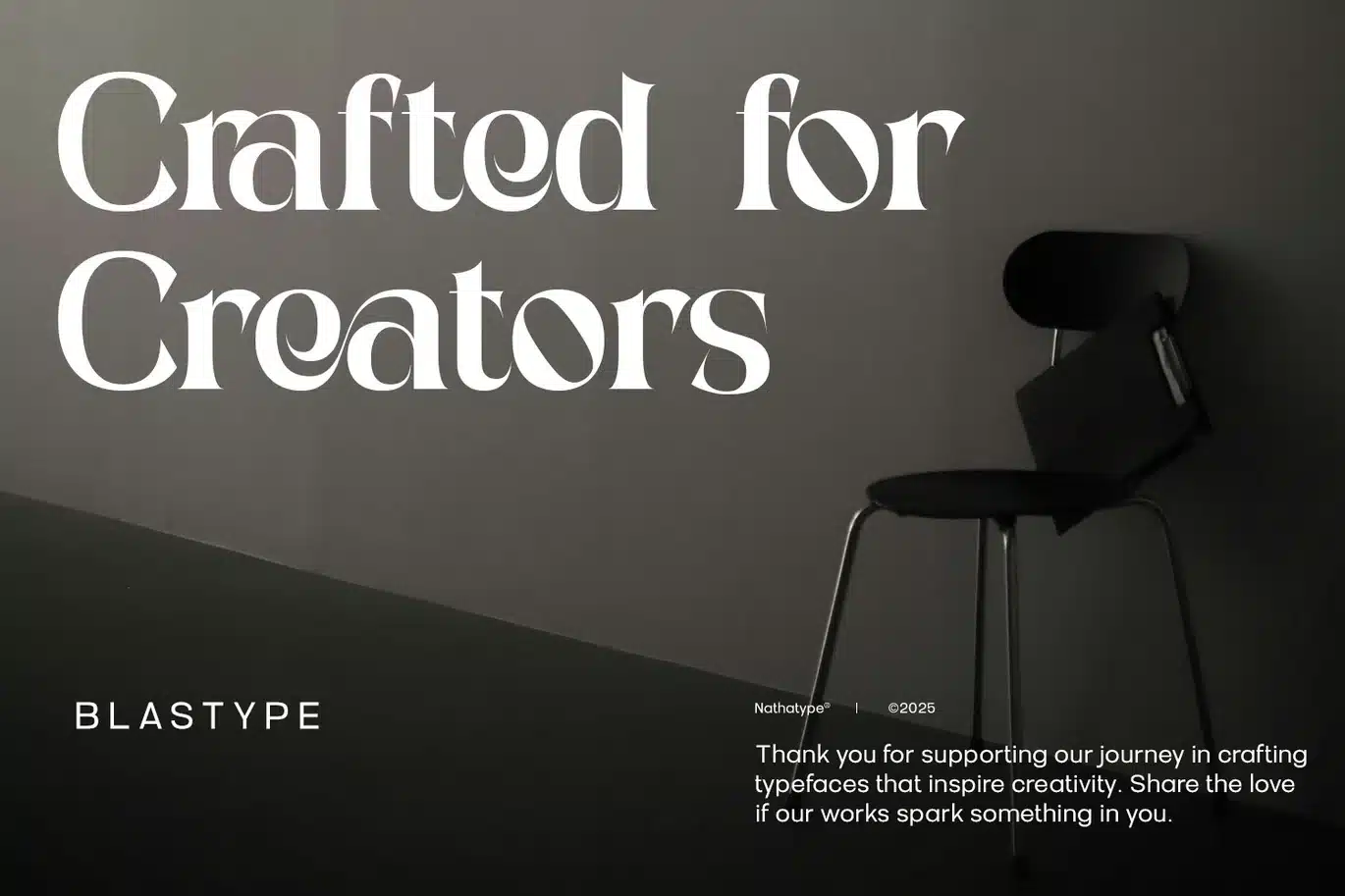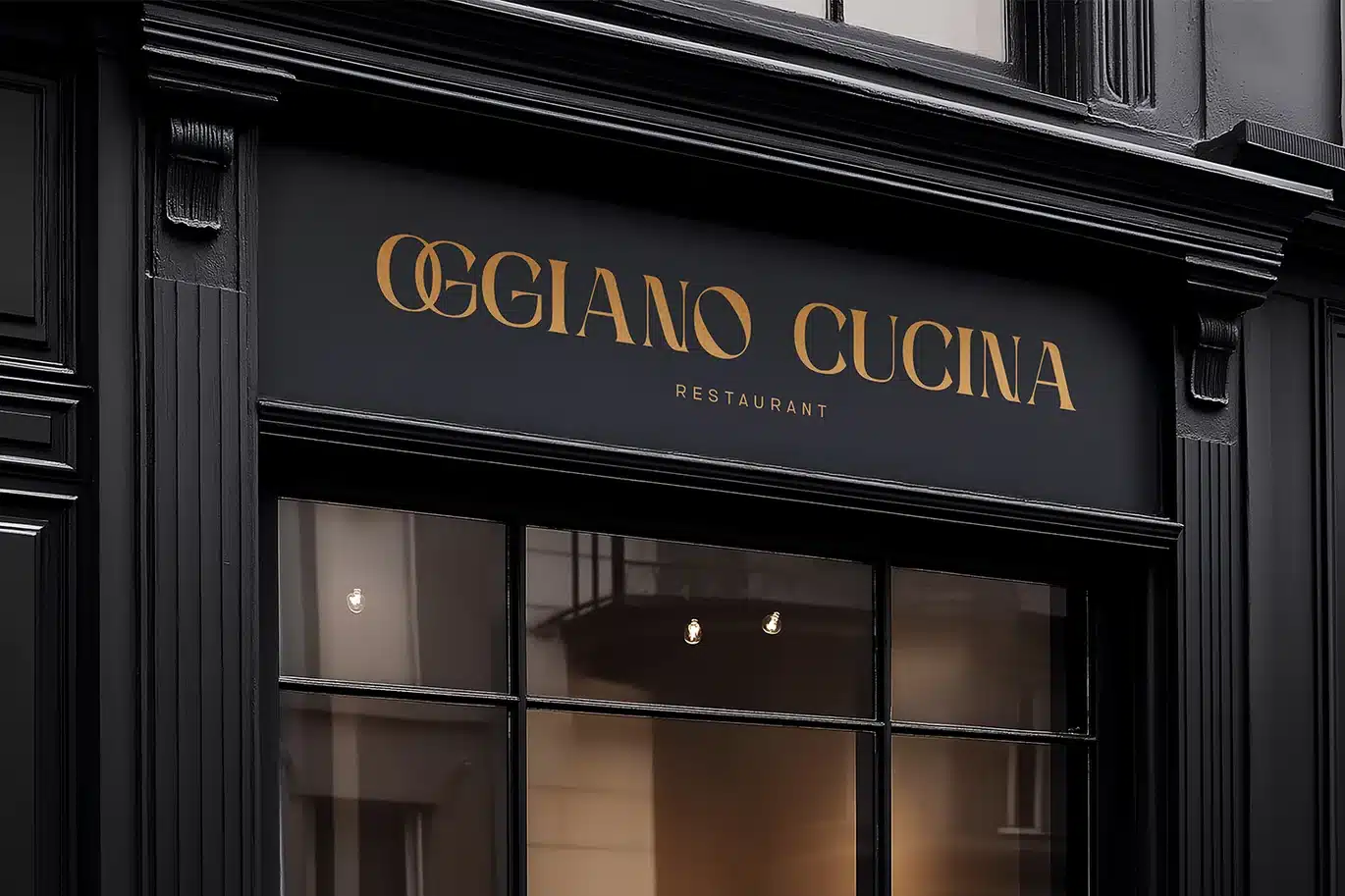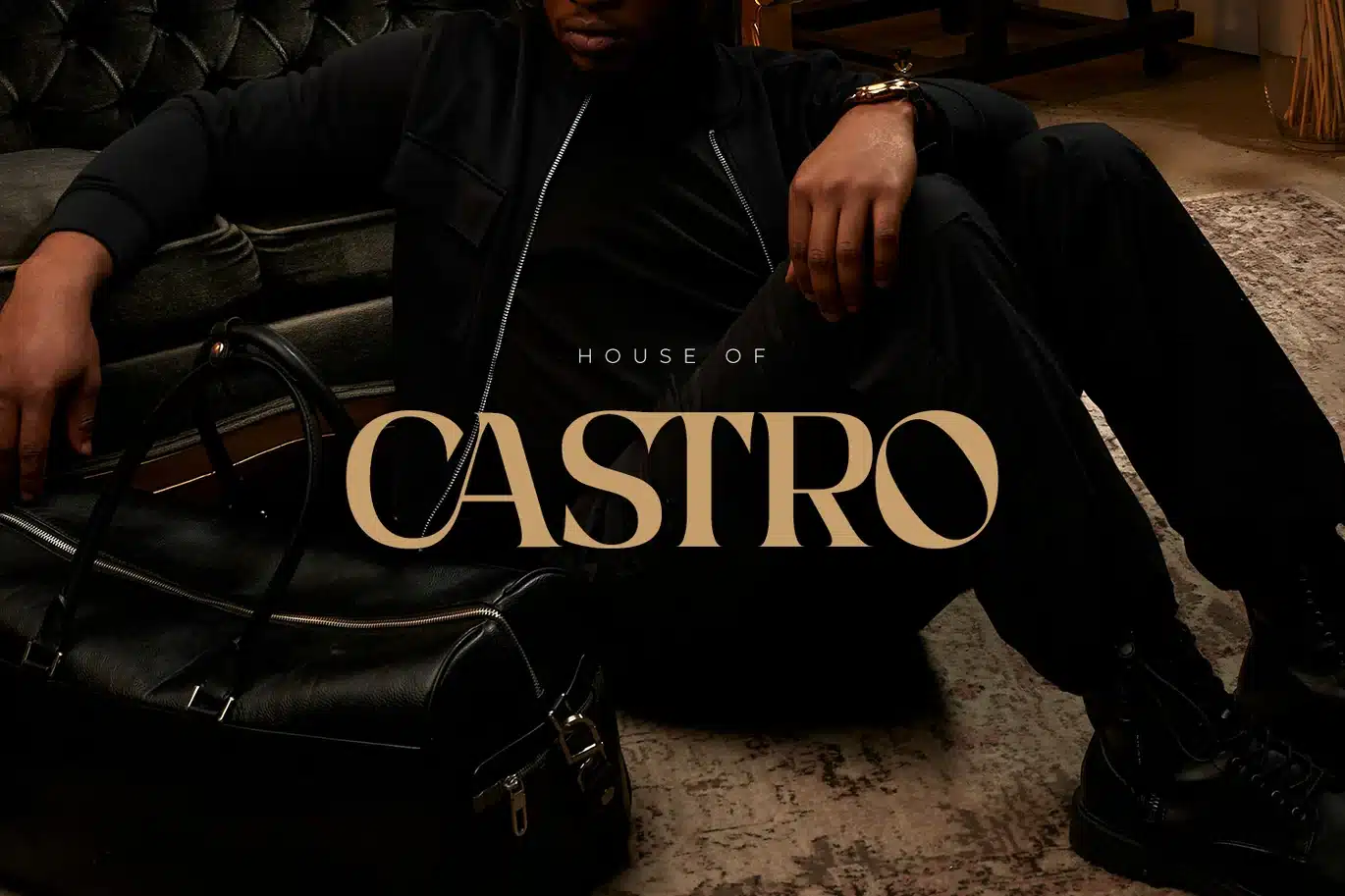
Blastype – Modern Luxury Font For Logo Branding
Blastype is a sleek sans serif font designed with simplicity and modern elegance in mind. Its clean lines and balanced proportions create a polished, contemporary look that’s versatile for a wide range of projects. Blastype delivers a sophisticated presence with effortless readability. Perfect for designers seeking a font that embodies clarity and style, Blastype brings a timeless, modern touch to any visual composition. In addition, enjoy the features here.
Blastype fits in branding, packaging, logos, posters, invitations, and many more designs. Find out more ways to use this font by taking a look at the font preview.